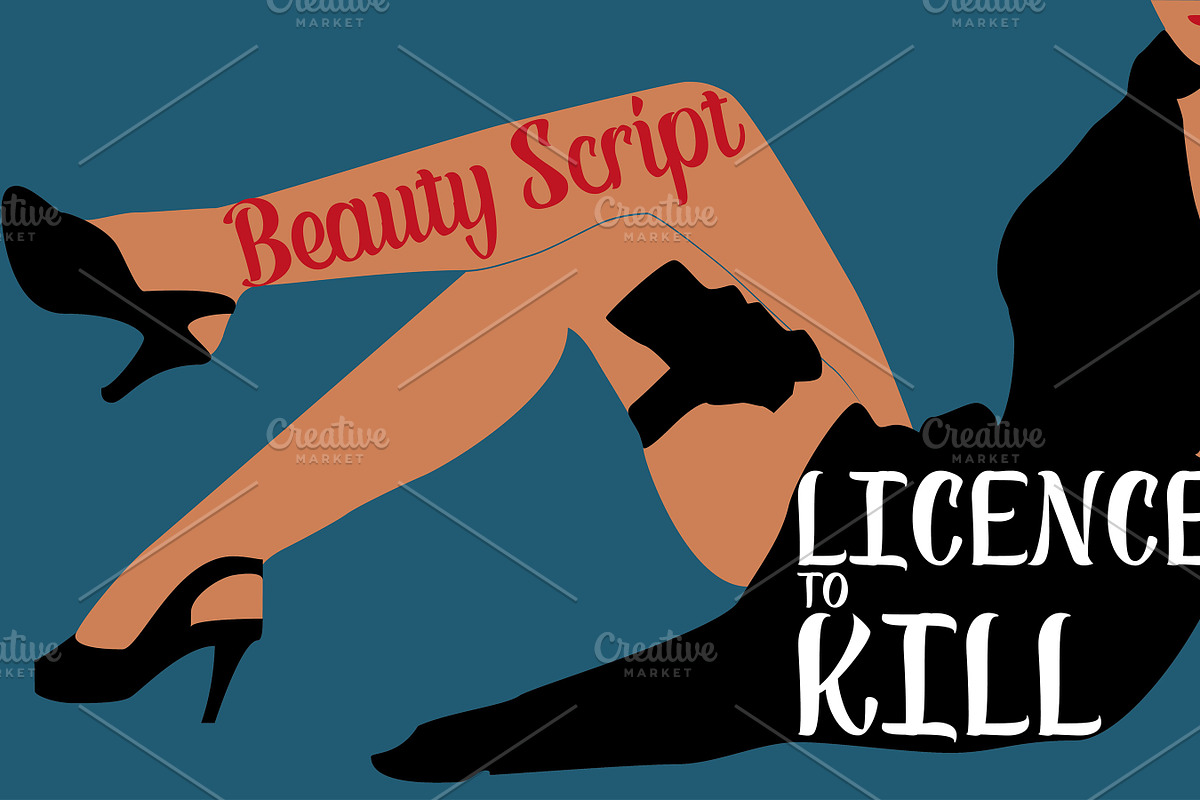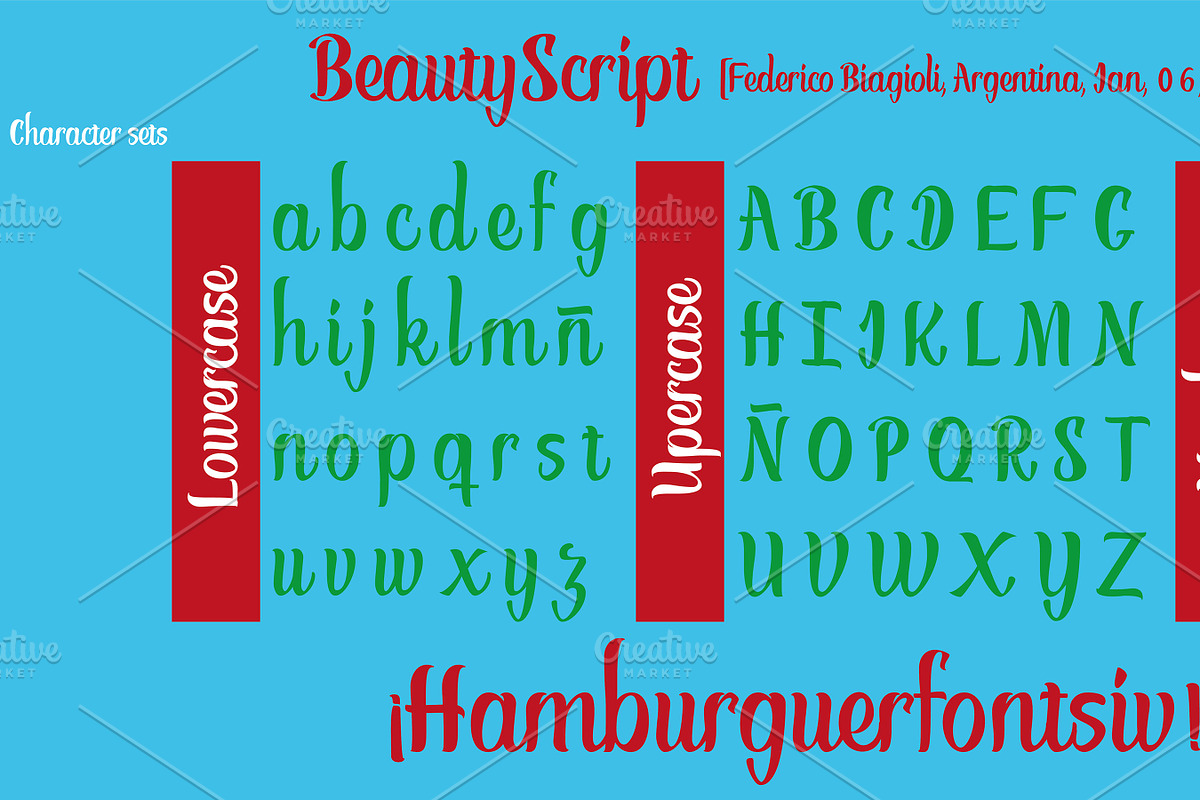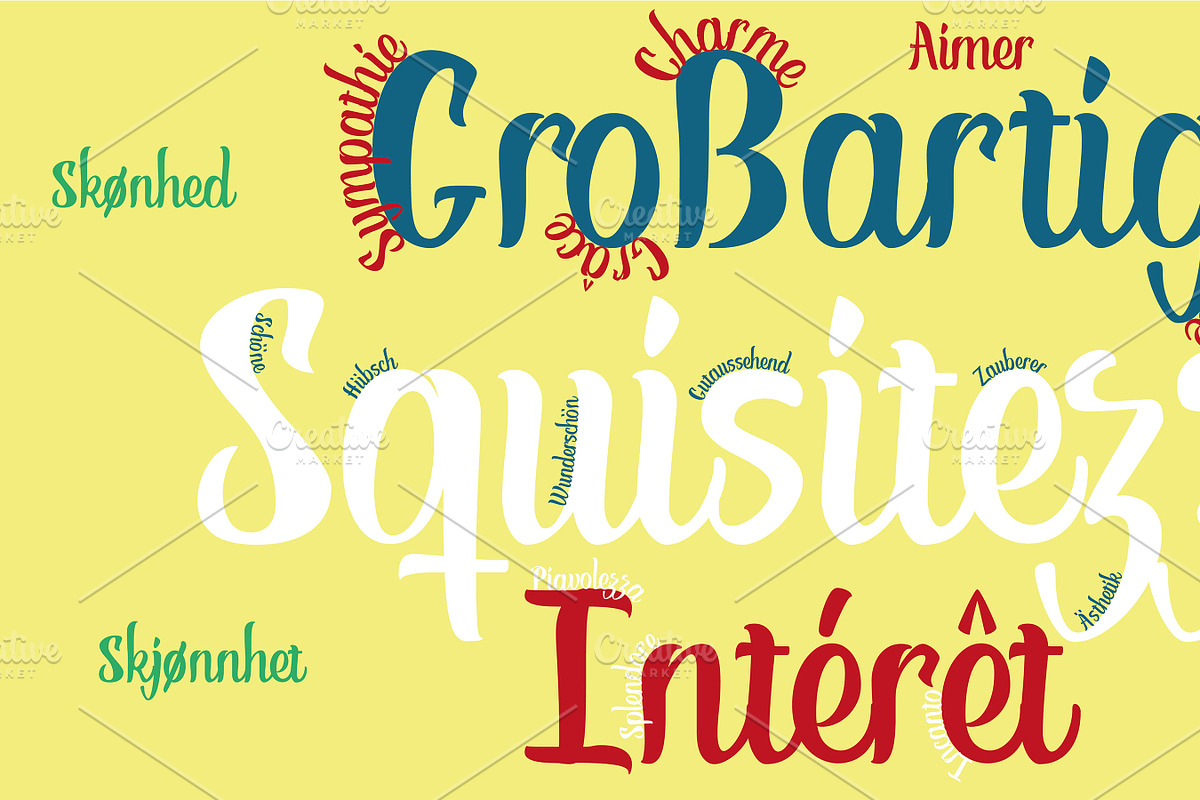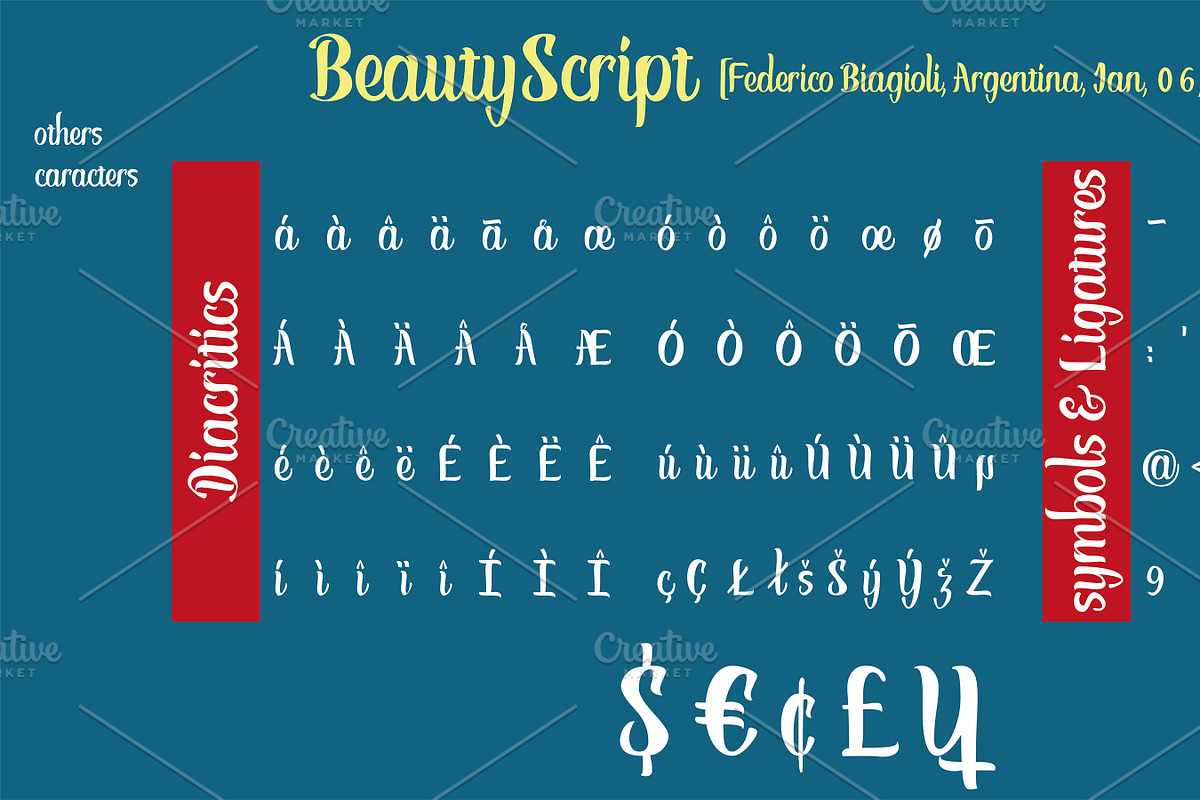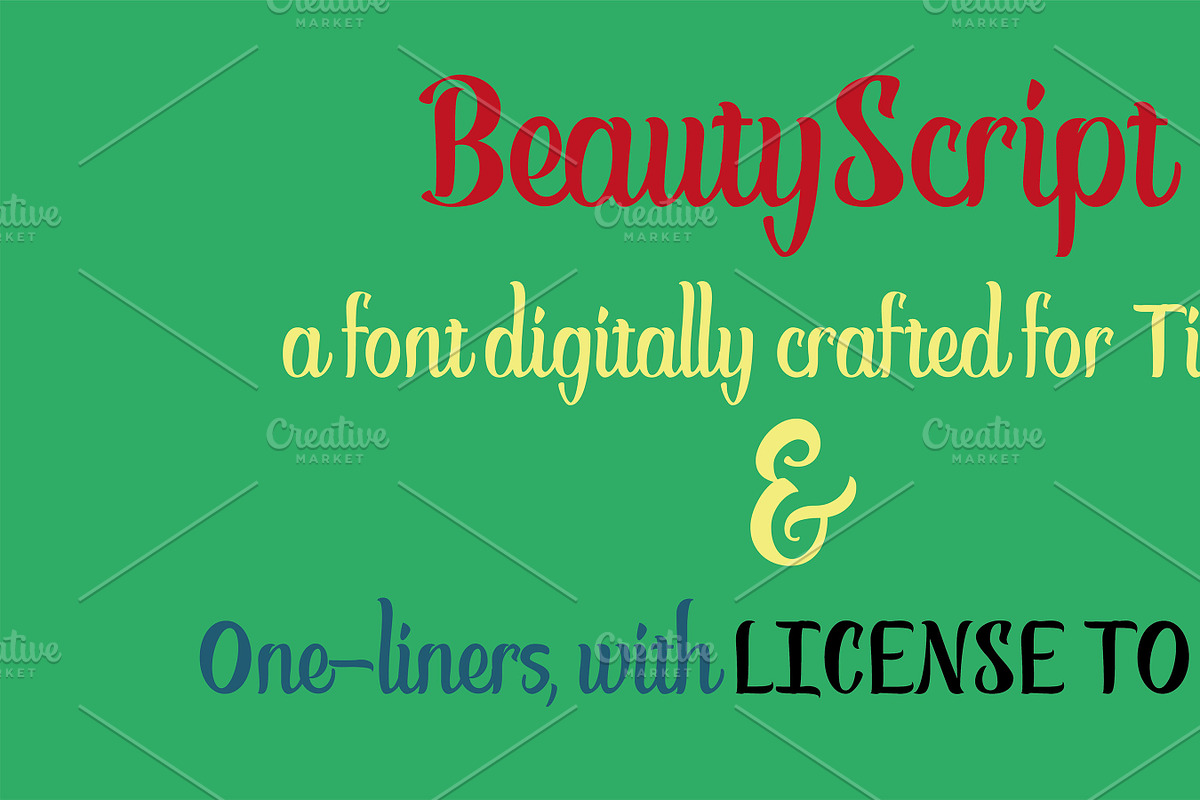
Beaty Script - Font
You can use this typographic font, to make posters with short phrases, its regular design allows you to capture the attention in an agile way, and with great pregnancy. A script font with which you can design your flyers, or poster with your favorite phrases at the moment.
Beaty Script - Font by Lettering Store fits naturally into Branding, posters, packaging, typography.